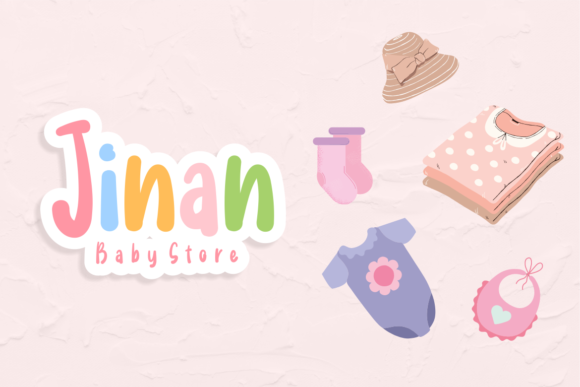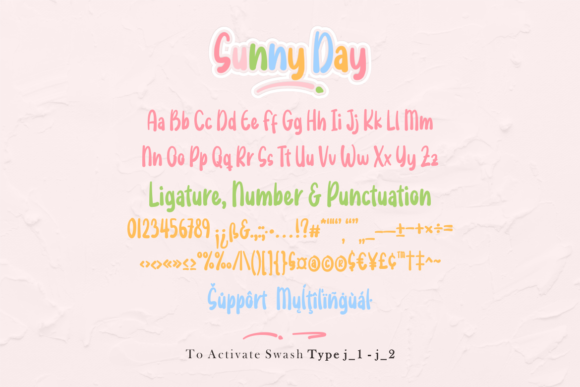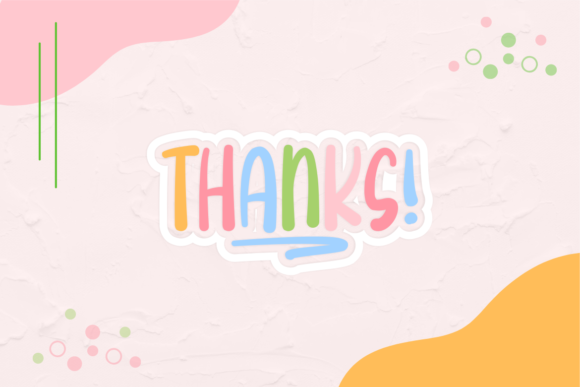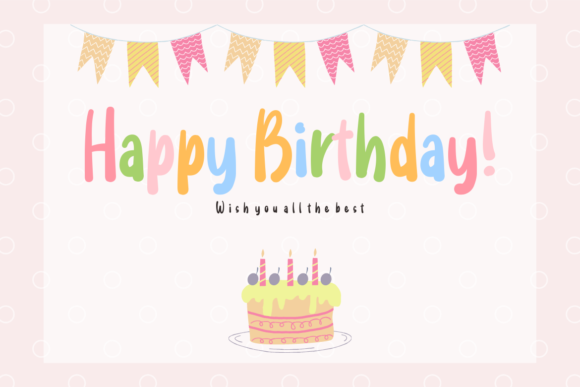
About Sunny Day Font
Sunny Day is a playful and delicate handwritten display font that adds a cheerful touch to a wide spectrum of creative applications. Whether used in greeting cards, headlines, or various design projects, this font is designed to bring a sense of happiness and warmth to your creations.
The playful nature of Sunny Day is evident in its whimsical and handwritten style. The font’s characters are crafted with a delicate touch, creating an overall appearance that is inviting and friendly. This makes Sunny Day suitable for projects where a lighthearted and joyous atmosphere is desired.
In greeting cards, Sunny Day can elevate the emotional impact of your messages. The font’s playful and delicate design adds a personal and heartfelt touch, making it perfect for expressing warm wishes, gratitude, or celebratory sentiments.
For headlines and display purposes, Sunny Day stands out with its unique and charming appearance. The font’s handwritten style ensures that each letter carries a distinctive character, creating visual interest and capturing the attention of your audience.
The versatility of Sunny Day allows it to be applied to a range of creative projects, from posters to social media graphics. Its PUA encoding provides easy access to a variety of glyphs and ligatures, enabling you to enhance the uniqueness of your typographic compositions effortlessly.
Whether you’re creating designs for digital or print media, Sunny Day’s playful and delicate handwritten display font brings a touch of happiness to your projects. Its charming aesthetic adds a joyful element, making it a delightful choice for a variety of applications.
In summary, Sunny Day is more than just a font; it’s a playful and delicate handwritten display font that injects happiness into your creations. Whether used in greeting cards, headlines, or other design contexts, Sunny Day brings a sense of warmth and joy to your typographic compositions, making them engaging and delightful.